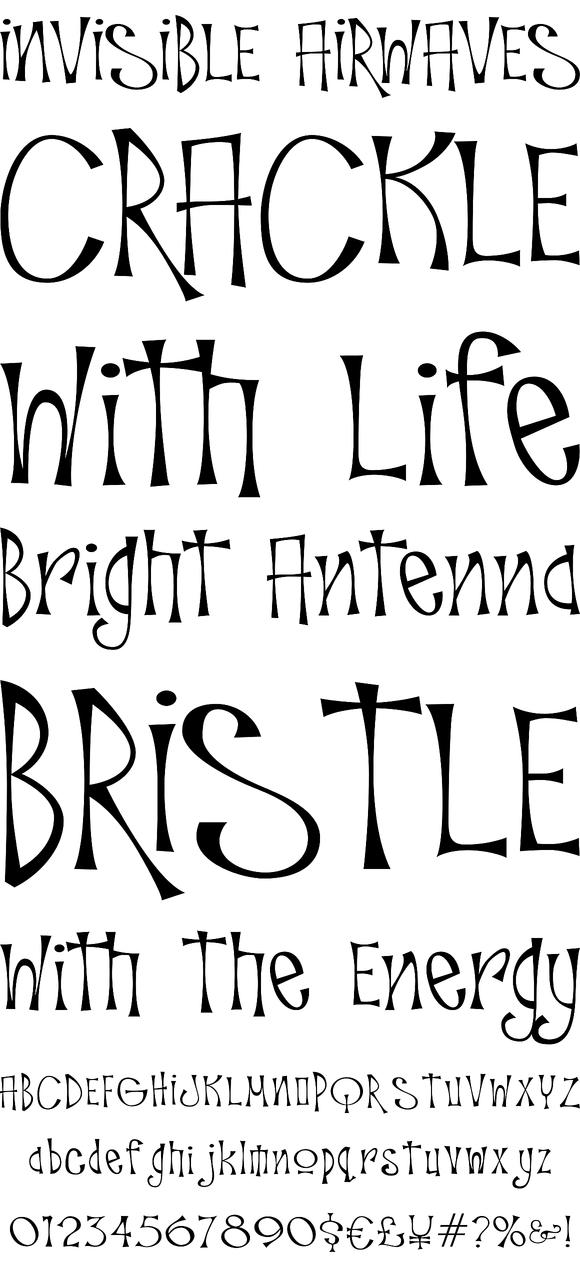
Troutkings
Foundry: Breaking The Norm
Troutkings is a typestyle inspired by graffiti and flavored up to have a retro throwback feel to it. A fun and quirky typeface that creates a visual bounce that is as appealing to the eye as it is fun to set type with.